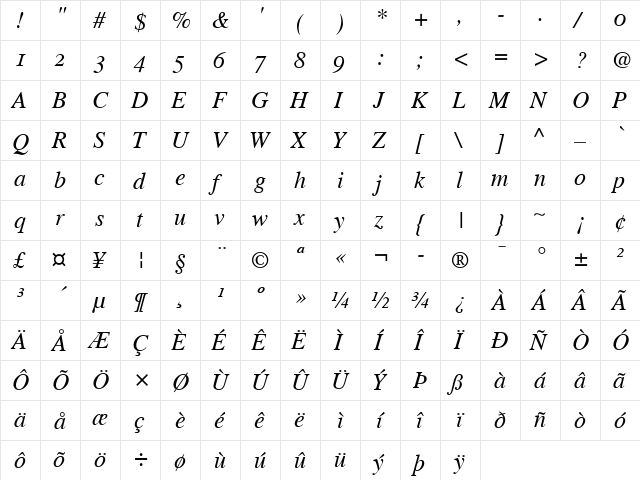
Times SC Italic
Design Context for Times SC Typeface
Times SC offers clean, dependable letterforms without strong stylistic allegiance, making it a practical choice for designers who need flexibility. The slanted form adds forward momentum and visual energy.
Pro Tip: Try Times SC for annotation and caption copy alongside an upright companion — the contrast in angle creates a dynamic but ordered typographic system.